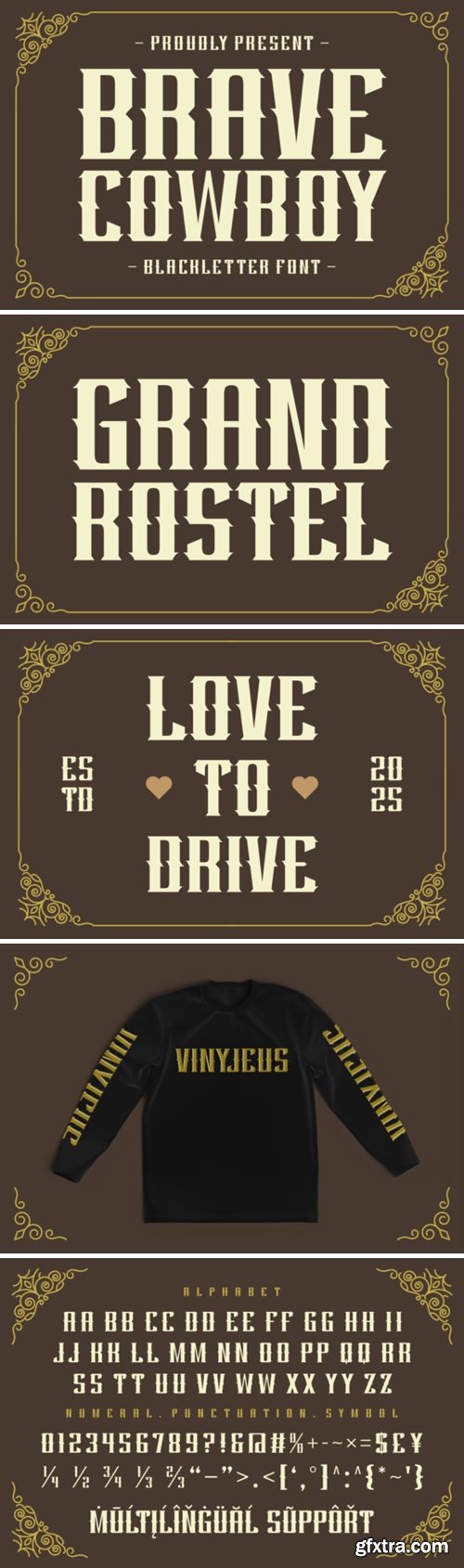
Immerse yourself in the bygone era of elaborate Victorian design and heritage craftsmanship with the Brave Cowboy Font. This all-caps, layered font is an homage to the intricate decorative scrollwork of the 19th century, with a dash of Old School edge. It’s perfect for creating eye-catching headlines, badges, book covers, and logos that exude a modern vintage vibe. This font is also adorned with ornamental extras and florals that further enhance its elegance.